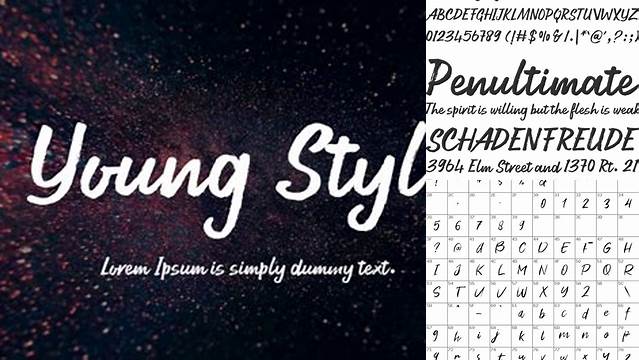
Introduction: Unleash Your Creativity with Young Style Regular Font
Hey guys! Are you on the hunt for that perfect font to inject some youthful exuberance into your designs? Look no further! The Young Style Regular Font is here to save the day. This font is an absolute game-changer, and it is perfect for a wide array of projects. Whether you are crafting a vibrant social media campaign, designing eye-catching posters, or revamping your website's typography, this font has got you covered. In this article, we are diving deep into why the Young Style Regular Font is such a hot commodity and, most importantly, how you can snag it for free. So, buckle up and let's get started on this fontastic journey! Fonts are the unsung heroes of design. They silently communicate the tone and personality of your message. A playful font can make your content approachable and fun, while a sophisticated font can lend an air of elegance and professionalism. The Young Style Regular Font strikes a delightful balance, making it incredibly versatile for various applications. Its clean lines and contemporary feel make it a standout choice for designers and creatives alike. Imagine the possibilities: a sleek logo, a captivating headline, or even body text that is a pleasure to read. The right font can elevate your project from ordinary to extraordinary, and the Young Style Regular Font is certainly equipped to do just that. But what exactly makes this font so special? Is it the way the characters flow seamlessly together? Or perhaps the unique quirks that give it character? We will explore all of this and more as we delve deeper into its features and benefits. So, stick around, because we are about to unlock the full potential of the Young Style Regular Font.
What is Young Style Regular Font?
The Young Style Regular Font is more than just a set of characters; it is a design tool that embodies modernity and simplicity. Its aesthetic appeal lies in its clean, crisp lines and a balanced structure, making it incredibly versatile for a wide range of design projects. Guys, think of it as the Swiss Army knife of fonts β ready for anything you throw at it! This font family is designed with readability in mind, ensuring your message is not only stylish but also easily digestible. Whether you are working on a website, a poster, or even a simple document, the Young Style Regular Font maintains its clarity across various sizes and resolutions. This is a crucial factor, especially in today's digital age, where content is consumed on devices ranging from massive desktop screens to tiny smartphone displays. The versatility of the Young Style Regular Font stems from its neutral yet contemporary design. It avoids overly ornate details or quirky features that might limit its usability. Instead, it focuses on a balanced and harmonious form, making it a reliable choice for both headlines and body text. This makes it an excellent option for projects where consistency and clarity are paramount. Imagine using it for a corporate website, where you need a font that conveys professionalism and trustworthiness. Or picture it in a magazine layout, where it provides a clean and modern backdrop for striking visuals. The possibilities are endless! But what truly sets the Young Style Regular Font apart is its ability to blend seamlessly with different design styles. It can be paired with bolder, more decorative fonts for a striking contrast, or it can stand on its own as a minimalist and elegant choice. This adaptability makes it a valuable asset in any designer's toolkit. Moreover, the font often includes a complete set of characters, including uppercase and lowercase letters, numbers, punctuation marks, and even special symbols. This comprehensive character set ensures that you have everything you need to communicate your message effectively, no matter the context. So, whether you are crafting a compelling call to action or writing a detailed report, the Young Style Regular Font has you covered.
Key Features and Benefits of Young Style Regular Font
Letβs break down the key features and benefits that make the Young Style Regular Font a must-have for your design arsenal. First off, its readability is top-notch. This font is designed to be easy on the eyes, making it perfect for both headlines and body text. Guys, we all know how crucial readability is β if people canβt read your message, what's the point? The clean and clear letterforms of this font ensure that your content is accessible and engaging, no matter the size or format. Another major benefit is its versatility. The Young Style Regular Font fits seamlessly into a wide range of design styles and projects. Whether you are working on a modern website, a classic print ad, or a trendy social media post, this font can adapt to your needs. It is like that one friend who gets along with everyone β reliable and always a good fit! The modern aesthetic of this font is also a significant draw. It has a contemporary feel that adds a touch of sophistication to any design. It is not overly trendy, so it will not look dated anytime soon, but it is also not stuffy or old-fashioned. This makes it a great choice for businesses and brands that want to project a forward-thinking and stylish image. Furthermore, the balanced design of the Young Style Regular Font ensures that it pairs well with other fonts. You can use it as the primary font for your project or combine it with bolder or more decorative fonts for a striking contrast. This flexibility allows you to create unique and dynamic designs that truly stand out. In addition to its aesthetic qualities, the Young Style Regular Font also offers practical benefits. It often includes a full character set, meaning you get uppercase and lowercase letters, numbers, punctuation, and special symbols all in one package. This comprehensive set ensures that you have everything you need to communicate your message effectively in any context. And let's not forget the fact that you can often find this font for free download. Yes, you heard that right! You can get your hands on this amazing font without spending a dime. This makes it an incredibly attractive option for students, freelancers, and anyone else who wants to create professional-looking designs on a budget. So, to recap, the Young Style Regular Font offers readability, versatility, a modern aesthetic, balanced design, a full character set, and, best of all, it is often available for free. What more could you ask for?
Design Inspiration: Projects That Shine with Young Style Regular Font
Okay, guys, now that you have got the Young Style Regular Font installed and ready to roll, let's dive into some design inspiration. Seeing how a font works in real-world projects can spark your own creativity and help you envision the possibilities. The Young Style Regular Font is incredibly versatile, so there are tons of ways you can use it to make your designs shine. First off, let's talk about branding. A font can make or break a brand's visual identity, and the Young Style Regular Font is an excellent choice for businesses that want to project a modern and approachable image. Imagine using it for a logo, website, and marketing materials β its clean lines and contemporary feel can help your brand stand out in a crowded marketplace. Think about tech startups, creative agencies, or even lifestyle brands β the Young Style Regular Font can give them a sleek and sophisticated edge. Another area where this font excels is web design. Readability is crucial on the web, and the Young Style Regular Font delivers on that front. Its clear and legible letterforms make it a great choice for body text, headlines, and navigation menus. Plus, its modern aesthetic pairs well with contemporary website layouts and designs. Whether you are creating a minimalist blog, a corporate website, or an e-commerce platform, this font can help you create a visually appealing and user-friendly experience. Print materials are another area where the Young Style Regular Font can shine. Think about brochures, posters, flyers, and business cards β this font can add a touch of elegance and professionalism to your print designs. Its versatility means it can work well for both formal and informal projects, making it a valuable asset for any designer. Imagine using it for a wedding invitation, a marketing brochure, or a conference poster β the Young Style Regular Font can help you create print materials that are both visually stunning and easy to read. Social media graphics are also a fantastic application for this font. In the fast-paced world of social media, grabbing attention is key, and a well-chosen font can make all the difference. The Young Style Regular Font's modern and clean style is perfect for creating eye-catching social media graphics that stand out in the feed. Whether you are designing Instagram posts, Facebook ads, or Twitter headers, this font can help you create visuals that are both engaging and on-brand. Finally, let's not forget about personal projects. Whether you are creating a resume, designing a birthday card, or writing a blog post, the Young Style Regular Font can add a touch of style and sophistication to your personal projects. Its versatility means it can adapt to a wide range of styles and formats, making it a great choice for any creative endeavor. So, there you have it β a whirlwind tour of design inspiration with the Young Style Regular Font. From branding to web design to print materials to social media graphics, this font is a versatile and stylish choice for a wide range of projects. So, go ahead and unleash your creativity β the possibilities are endless!
Conclusion: Elevate Your Designs with Young Style Regular Font
Alright, guys, we have reached the end of our journey into the world of the Young Style Regular Font. I hope you have found this guide helpful and inspiring. To recap, the Young Style Regular Font is a fantastic choice for anyone looking to add a touch of modernity and versatility to their designs. Its clean lines, legible letterforms, and contemporary aesthetic make it a standout option for a wide range of projects. Whether you are working on branding, web design, print materials, or social media graphics, this font has got you covered. We have explored its key features and benefits, discussed where to download it for free, walked through the installation process, and even delved into some design inspiration. Now it is your turn to put your newfound knowledge into action and start creating amazing designs with the Young Style Regular Font. Remember, fonts are a powerful tool for communication, and choosing the right font can make a huge difference in the overall impact of your design. The Young Style Regular Font is a versatile and reliable choice that can help you convey your message effectively and stylishly. So, don't be afraid to experiment, explore, and have fun with this fantastic font. Try it out in different contexts, pair it with other fonts, and see what you can create. The possibilities are truly endless! And let's not forget the best part β you can often download the Young Style Regular Font for free. This makes it an incredibly accessible option for students, freelancers, and anyone else who wants to create professional-looking designs on a budget. Just remember to download fonts from reputable sources and always read the licensing information carefully. In conclusion, the Young Style Regular Font is a valuable addition to any designer's toolkit. Its versatility, readability, and modern aesthetic make it a top choice for a wide range of projects. So, go ahead and elevate your designs with this fantastic font β you won't be disappointed. Thank you for joining me on this fontastic adventure. Happy designing, guys!